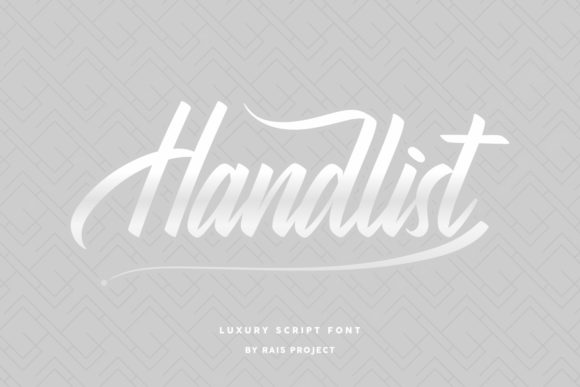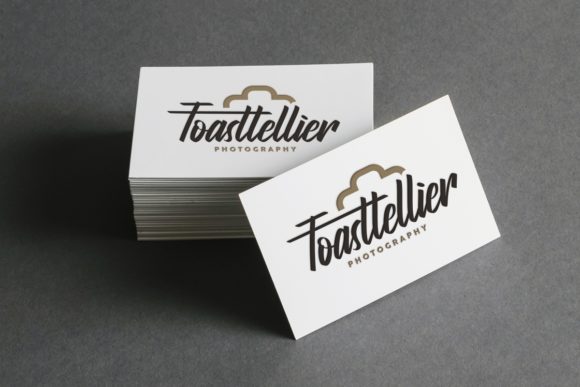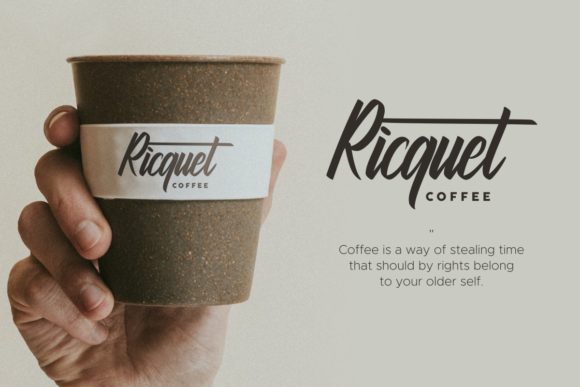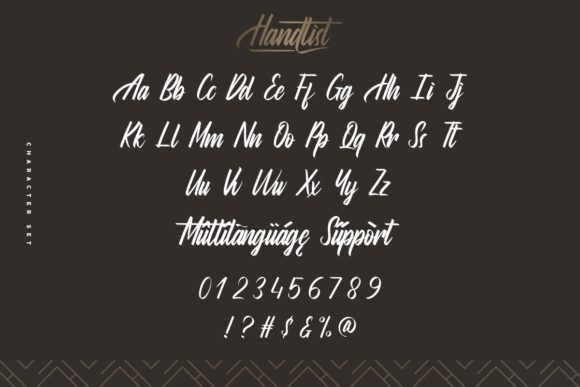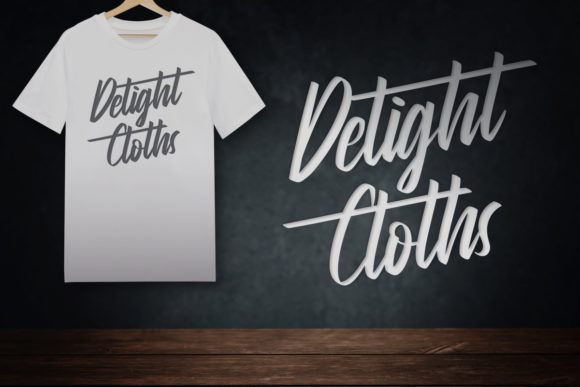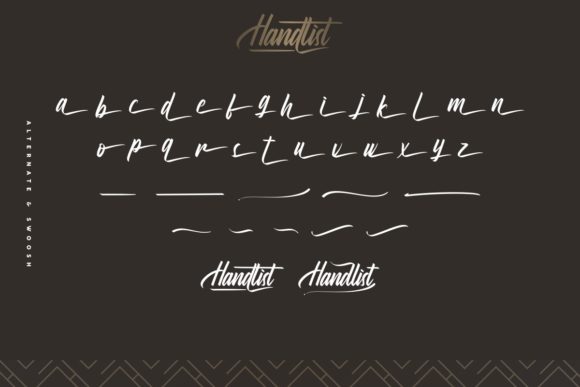
Introducing Handlist Font: Elevate Your Designs with a Touch of Elegance
In the world of typography, fonts play a crucial role in conveying the tone and aesthetic of a design. For those seeking a charming and modern script font to elevate their projects, Handlist Font is an excellent choice. This beautiful font is designed to add a touch of elegance to any design, making it perfect for crafters, designers, and anyone looking to create stunning visual content.
What Makes Handlist Font Stand Out?
Handlist Font is a modern script font that boasts a unique and charming appearance. Its elegant strokes and beautiful swashes make it an ideal choice for a wide range of design projects, from wedding invitations and branding materials to social media graphics and more. The font’s modern design ensures that it remains versatile and adaptable, allowing designers to use it in various contexts.
One of the key features that sets Handlist Font apart is its PUA (Private Use Area) encoding. This means that users can access all the glyphs and swashes with ease, allowing for greater flexibility and creativity in their designs. With PUA encoding, designers can effortlessly navigate the font’s extensive character set, including alternates, ligatures, and swashes, to create unique and visually appealing text arrangements.
Handlist Font is a valuable asset for designers and crafters looking to add a touch of sophistication to their work. Whether you’re creating:
- Digital and print advertisements
- Crafting projects, like DIY tutorials and patterns
Handlist Font is the perfect choice to elevate your designs and make them stand out.
Key Features of Handlist Font
- Beautiful and modern script font: Handlist Font features a stunning, contemporary design that’s sure to impress.
- PUA encoded: Easy access to all glyphs, swashes, and alternates for added flexibility.
- Charming appearance: Add a touch of elegance to your designs with Handlist Font’s unique and captivating style.
- Versatile: Suitable for a wide range of design projects, from digital to print.
Handlist Font is a beautiful and modern script font that’s perfect for designers and crafters looking to add a touch of elegance to their work. With its PUA encoding and charming appearance, this font is sure to elevate your designs and make them stand out. Whether you’re working on a wedding invitation, branding materials, or social media graphics, Handlist Font is an excellent choice. Download Handlist Font today and take your designs to the next level!